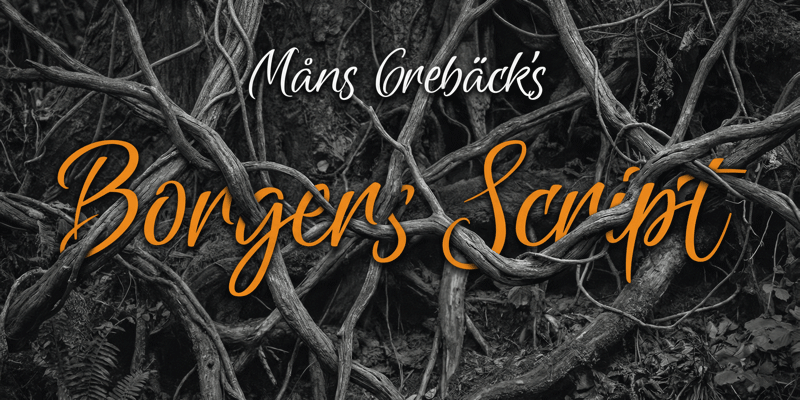
Borgers Script
NOTE: This font is for PERSONAL USE ONLY! To purchase a commercial license, visit: https://www.mansgreback.com/product/borgers-script Borgers Script is a relaxed handwritten script with a light, friendly rhythm. It carries a natural flow that feels written in one sitting, without rushing or posing. The letterforms are smooth and slightly bouncy, with gentle connections and open shapes that keep the text readable. For questions, please visit https://mansgreback.com/faq